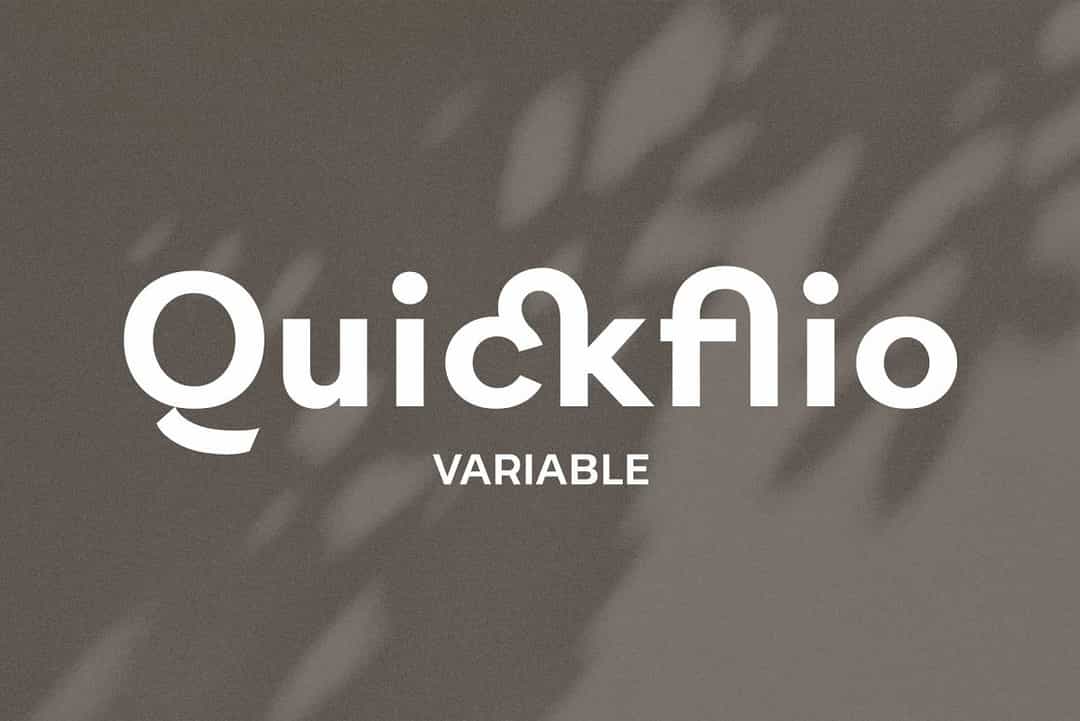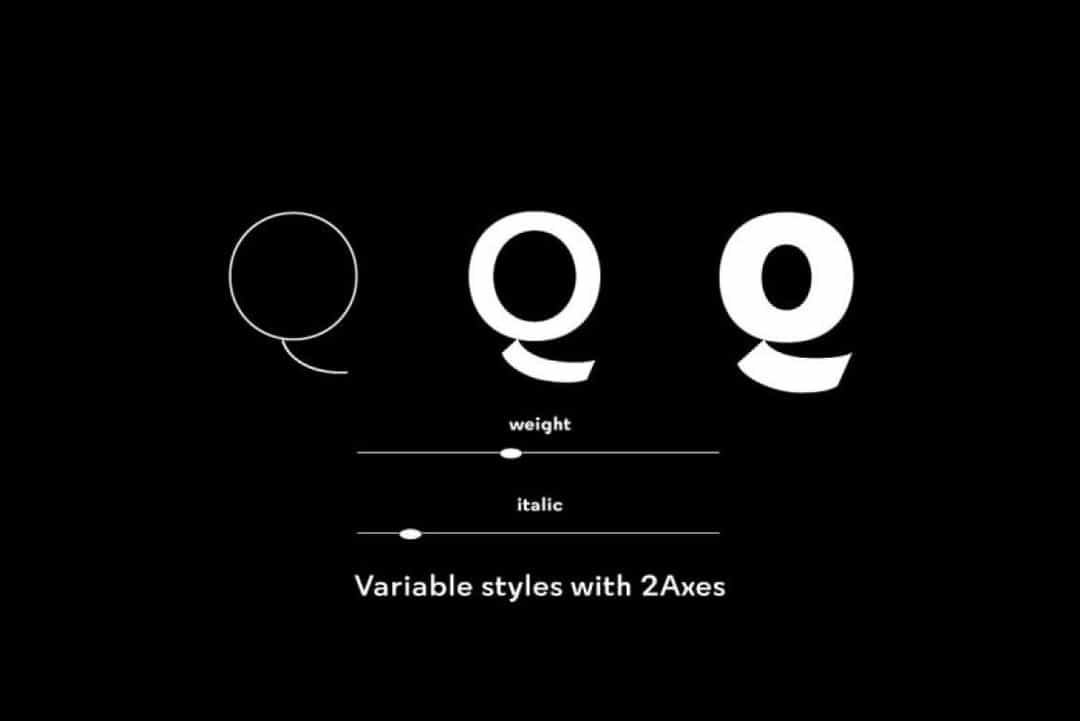
Quickflio Variable Sans Serif Font Family. Having spent years solving issues, this font family now boasts exceptional visual appeal and originality, perfect for designers. Boasting two axes of variable font size ranging from 10pt up to 220pt stem width options this versatile font family offers exciting possibilities when creating distinct typography.